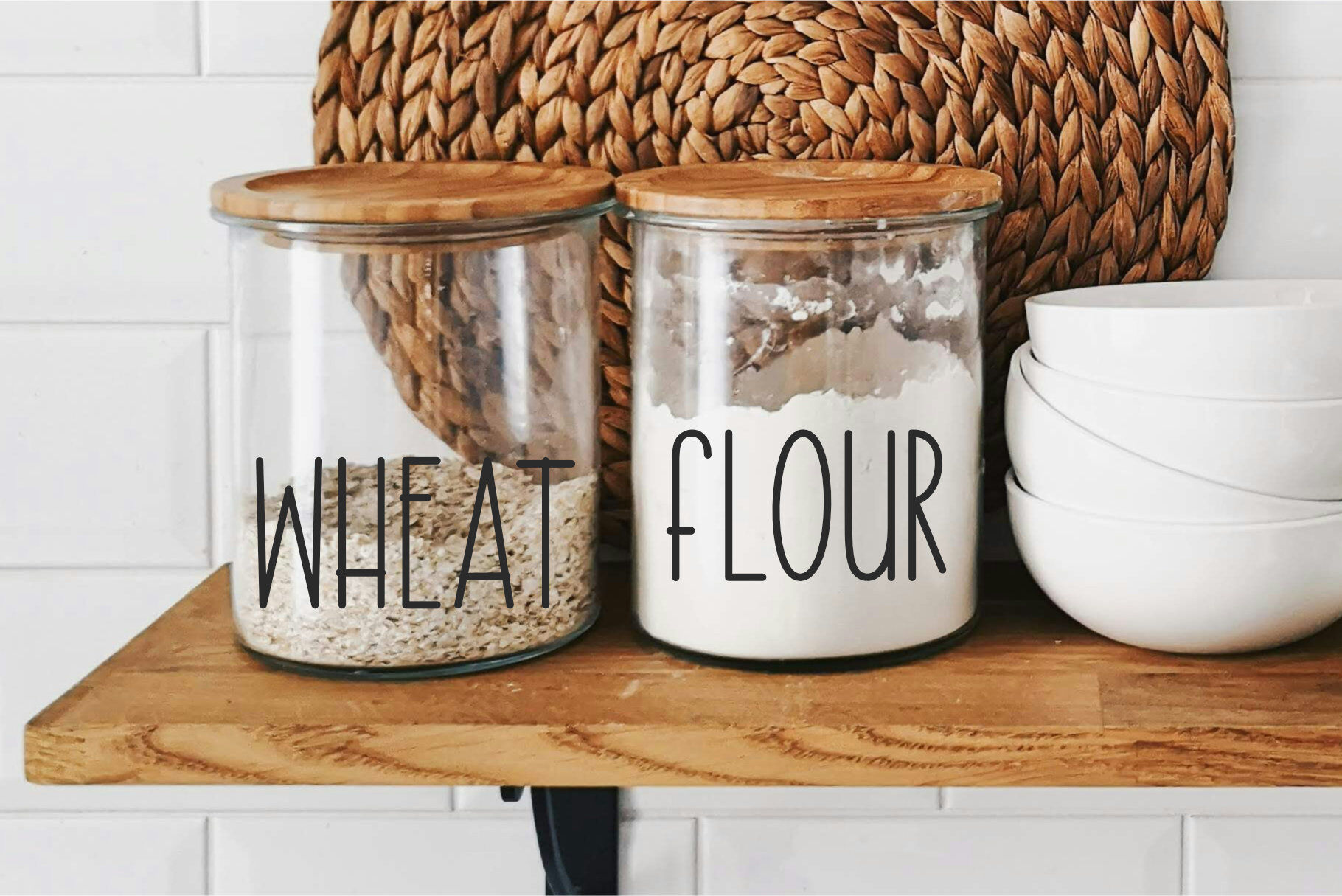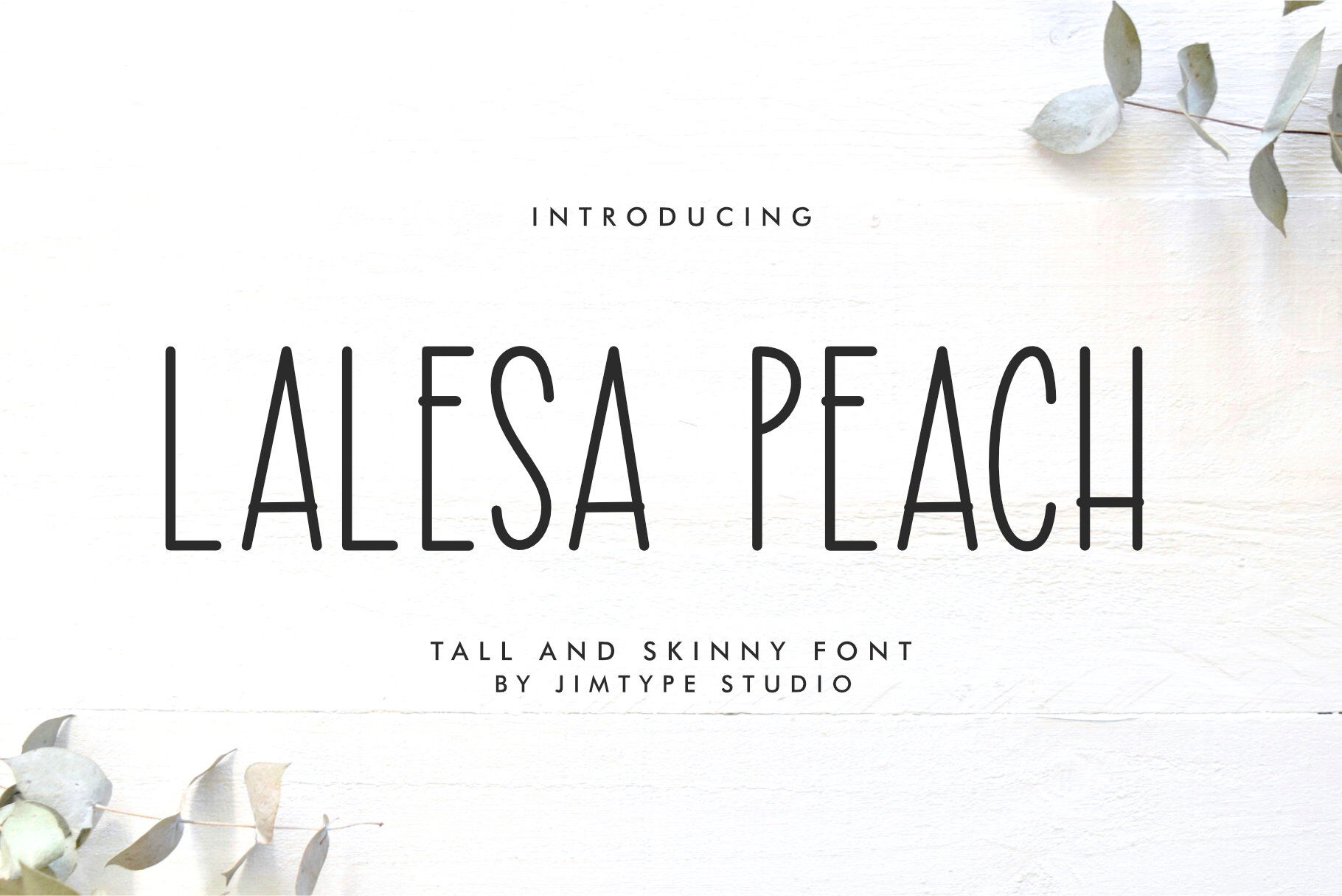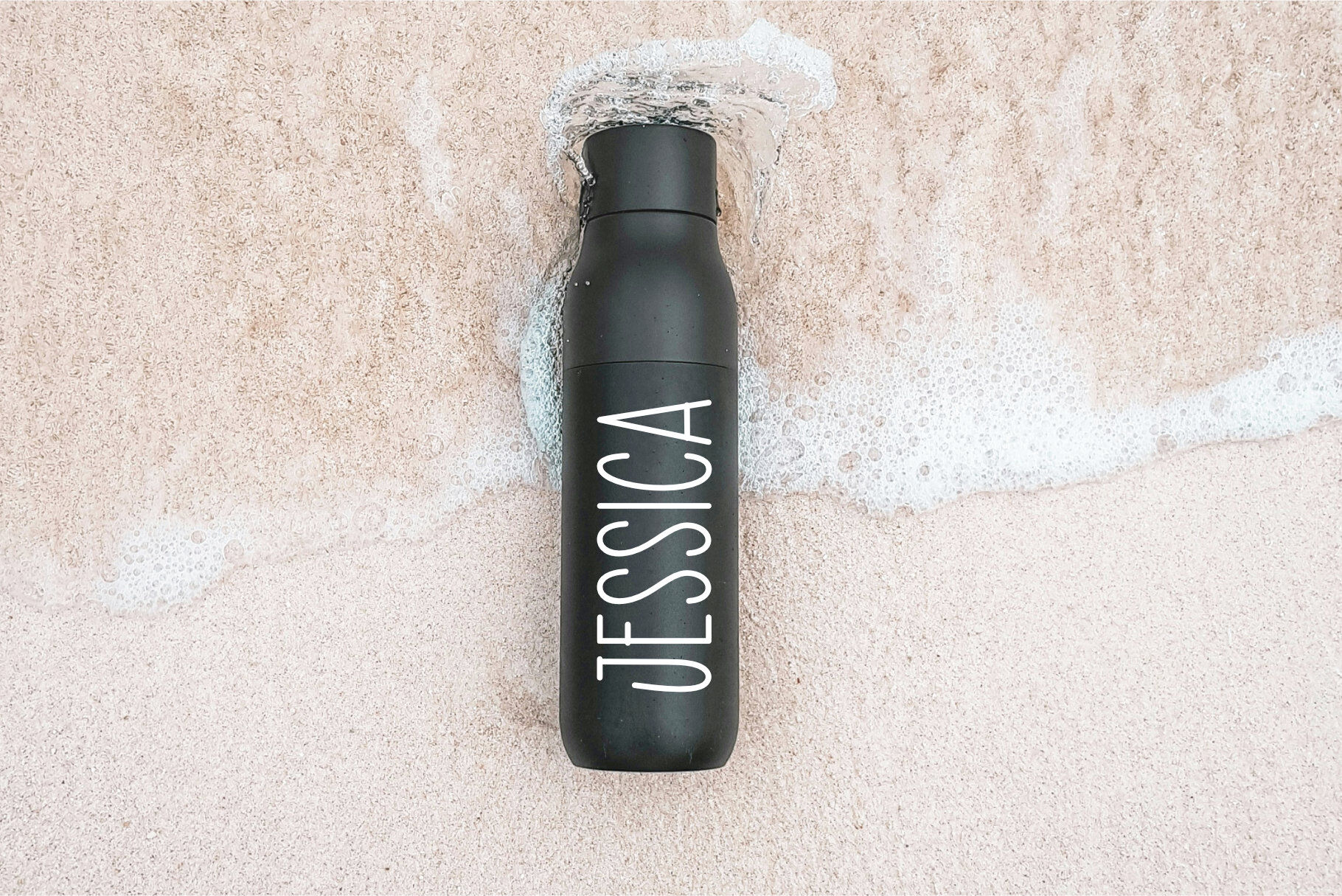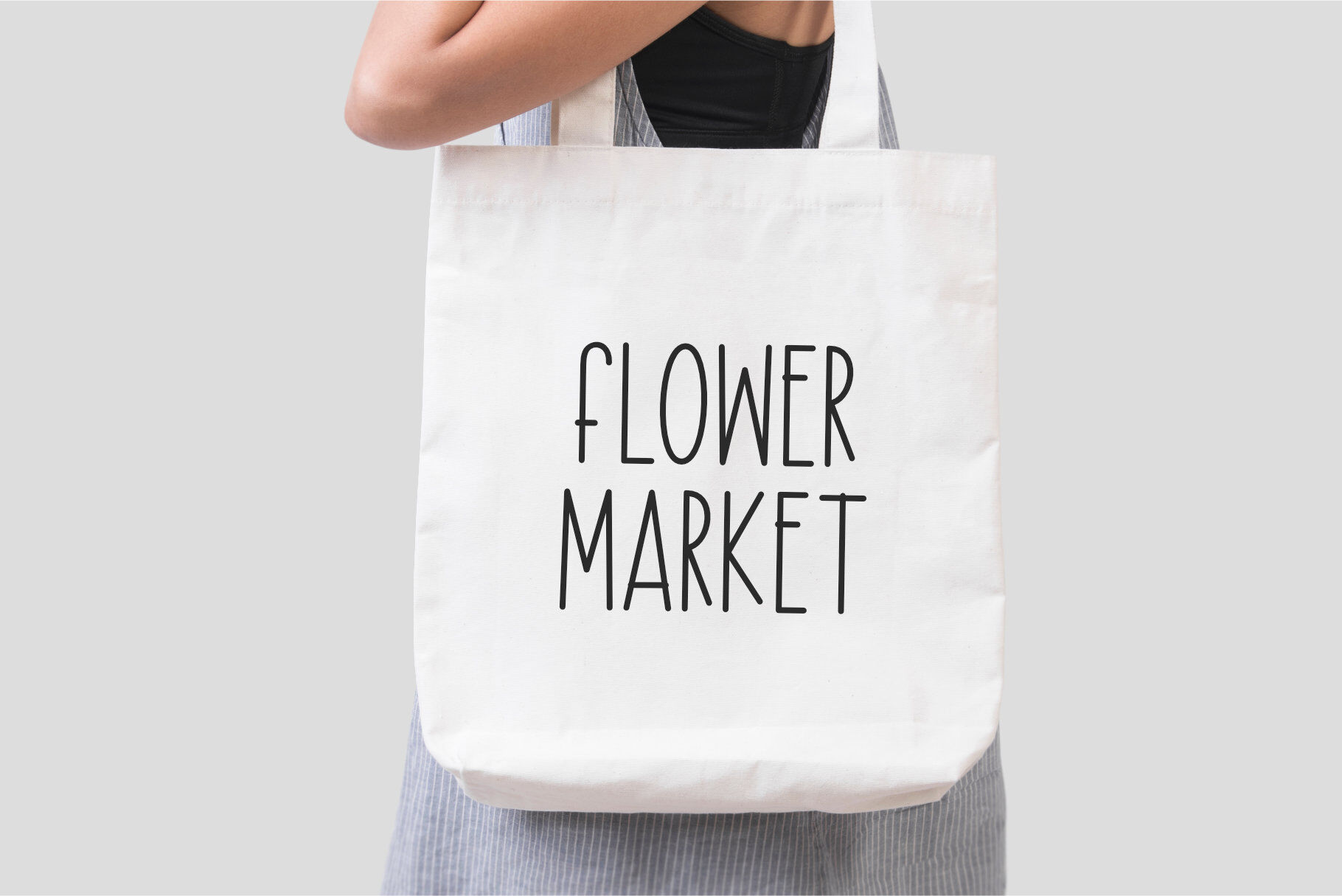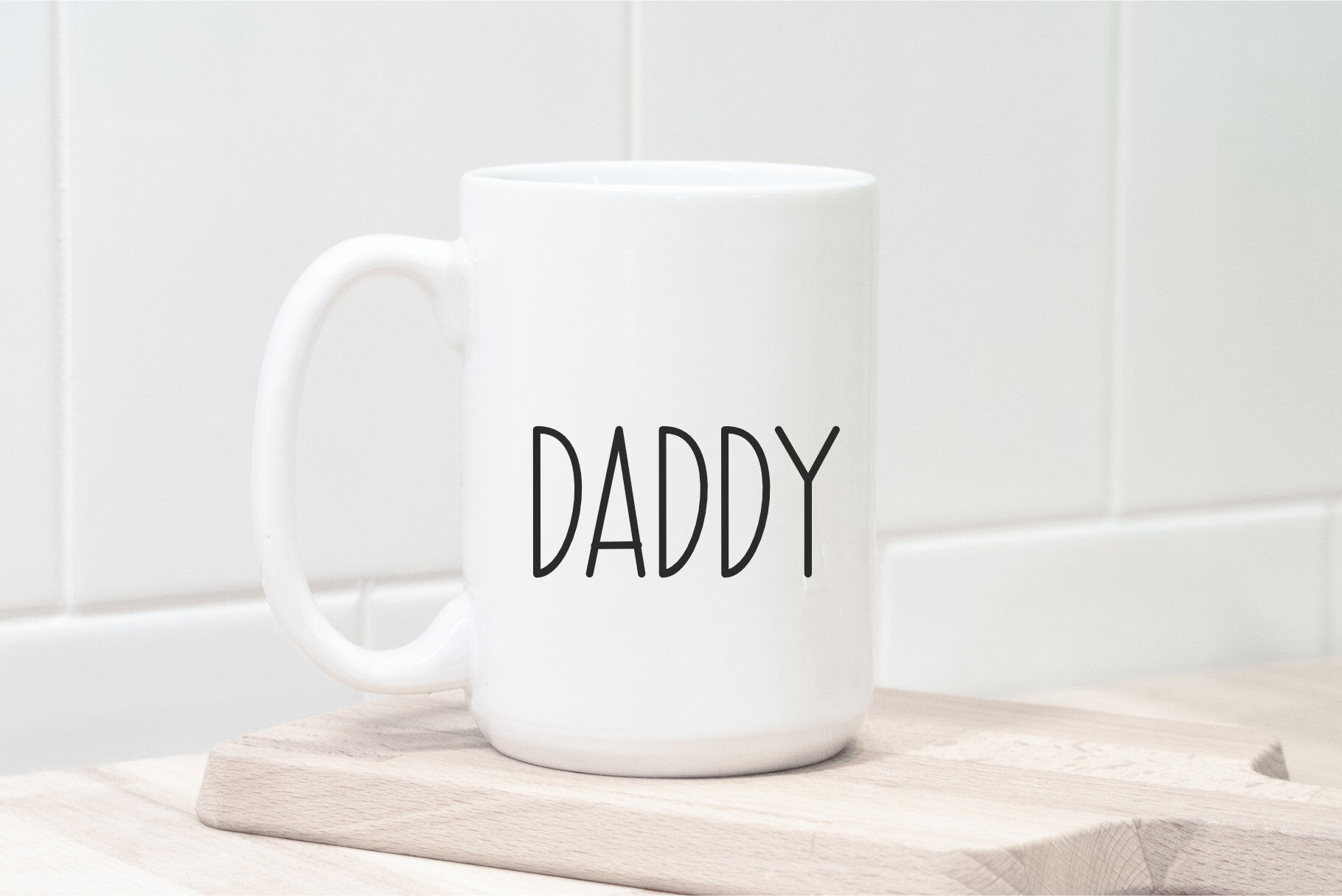
Lalesa Peach - Tall and Skinny Font
Say hello to Lalesa Peach! A tall skinny font perfect for adding a touch of whimsy to your projects. This font is perfect for shirt designs, country decor, farmhouse signs, websites, branding, children's designs, SVG designs, blogs, logos, invitations, and more! Inside the File: Lalesa Peach (OTF,TTF, WOFF, WOFF2) Thank you so much We hope you enjoy and happy creating! ~ Jimtype Studio